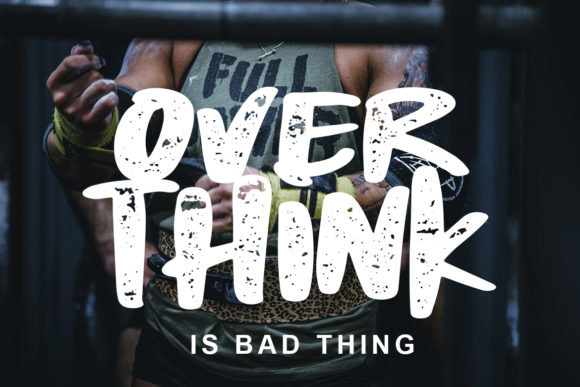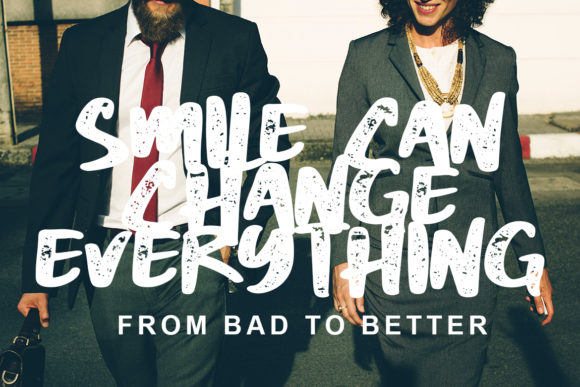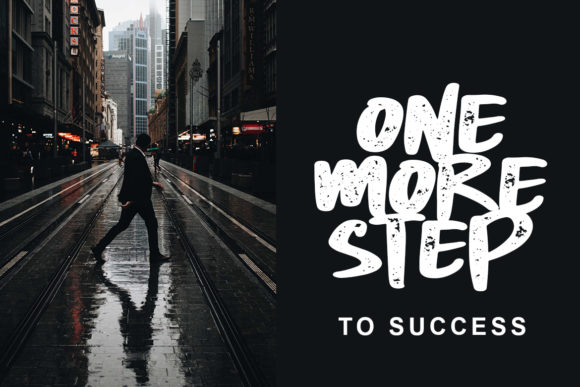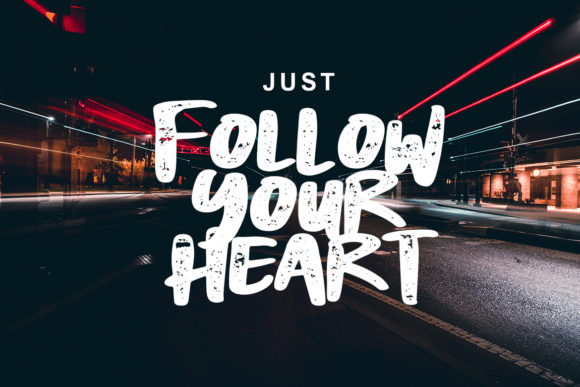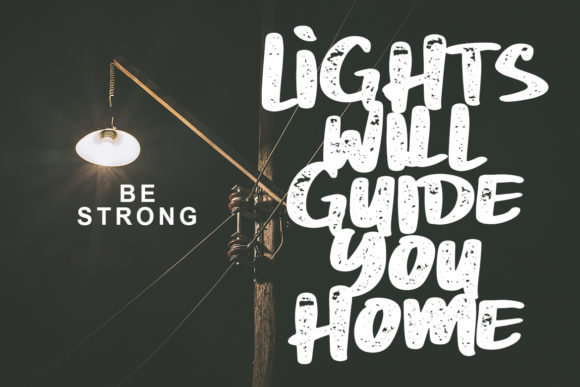
Introduction to Smack Queen Font
Have you ever found yourself stuck in a creative rut, desperately searching for that one design element that brings your project to life? You know, that magic spark that sets your imagination ablaze and makes everything fall into place? For designers, this feeling is all too familiar, and that’s why we’re excited to introduce you to the Smack Queen Font – a game-changing logotype font that’s about to become your new go-to design resource.
With its unique blend of style and sophistication, the Smack Queen Font is perfect for logos, quotes, posters, playful lettering, clothing, and much more. Whether you’re working on a high-profile campaign or a personal project, this versatile font is sure to elevate your design to the next level. Plus, with a transparent background and high-quality design, you can trust that your creative project will look its absolute best.
Key Features of Smack Queen Font
- High-quality, bold, and edgy font perfect for creative projects and designs.
- Unique characteristics include its distressed and vintage feel, making it ideal for grunge and punk-inspired designs.
Honest Review: Smack Queen Font
I recently stumbled upon the Smack Queen Font and I must say it’s a great addition to my design resource collection. As a designer, I’m always on the lookout for unique and high-quality fonts to enhance my creative projects. The Smack Queen Font definitely delivers.
- What works well: The Smack Queen Font has a bold and edgy feel that’s perfect for modern designs. It’s also available as a free download, which is a huge plus for designers on a budget. I’ve used it in several projects and the results have been fantastic.
- What works well: The font is also available with a transparent background, making it easy to use on a variety of backgrounds and designs.
- What works well: The high quality of the font ensures that it looks great at any size, from small text to large headings.
However, I do have a few minor complaints. The font is a bit limited in terms of style variations, which may not be suitable for designers who like to mix and match different font styles in their designs. Additionally, the font may not be suitable for very formal or traditional designs.
Overall, I’m really impressed with the Smack Queen Font. It’s a great design resource that’s perfect for modern and edgy designs. I would definitely recommend it to fellow designers looking for a high-quality font to add to their collection.
Tips for Getting the Most Out of Smack Queen Font
For the best results, use Smack Queen Font with a transparent background to give your designs a clean and modern look. You can also experiment with different font sizes and styles to add visual interest to your project.
Common Use Cases for Smack Queen Font
Smack Queen Font is a popular choice for designers working on creative projects such as logos, brochures, and social media graphics. It’s also a great option for personal projects, such as invitations and party decorations.